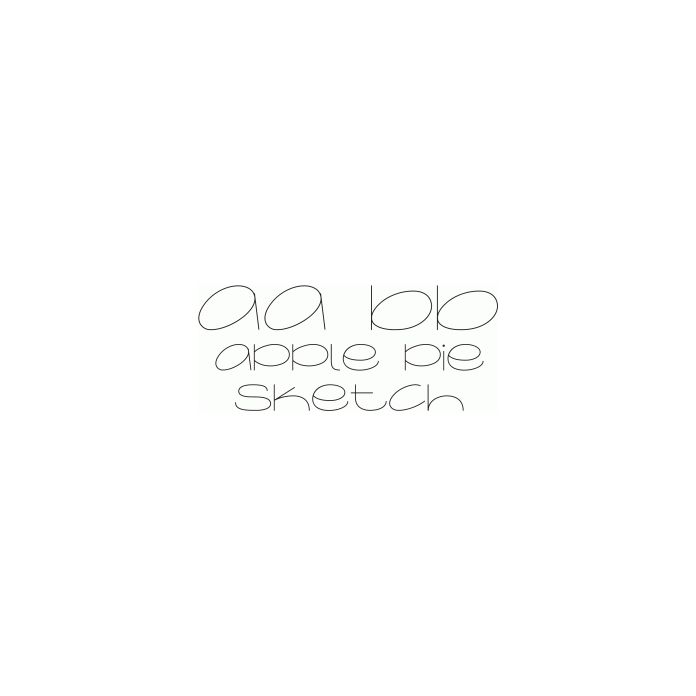
This is such an adorable font for your craft needs. It is all one height so it will flow nicely on almost any project. It is an unicase font and is made up from a combination of upper and lower case. Includes number and some basic punctuation. For updates and ideas for using Rivka's designs visit rivkasrenditions.blogspot.com and https://www.facebook.com/rivkasrenditions To obtain a limited commercial license for Rivka's Renditions go to my etsy store at etsy.com/rivkasrenditions